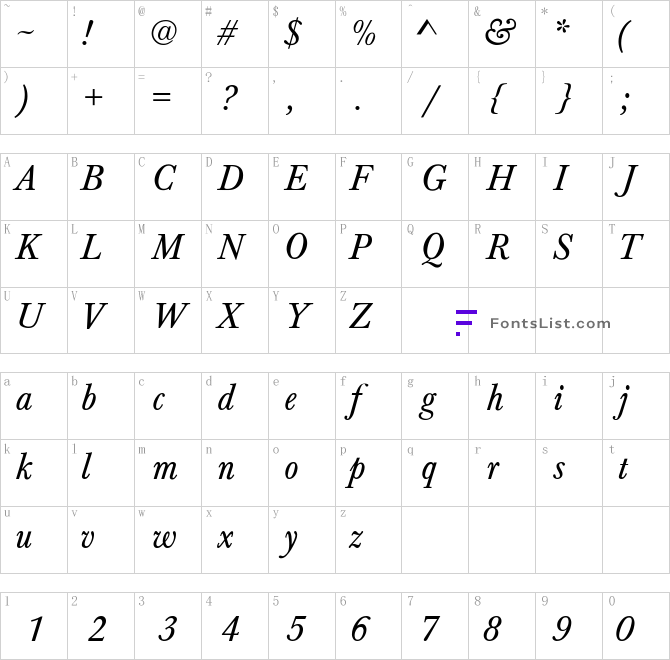
Baskerville-Normal-Italic.ttf is a very beautiful artistic font, Baskerville-Normal-Italic.ttf is widely used in the design and printing of various books and pictures,Baskerville-Normal-Italic.ttf has a strong visual impact,Baskerville-Normal-Italic.ttf is a commonly used font in newspapers, magazines and books, and is used in posters, e-commerce Poster design, store design, logo design, font design and other fields.Baskerville-Normal-Italic.